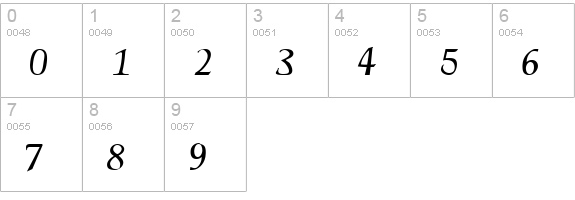
Garrett Medium is a balanced, medium-weight variant in the Garrett typeface family \xE2\x80\x94 well suited to sub-headlines, navigation, and balanced editorial work.